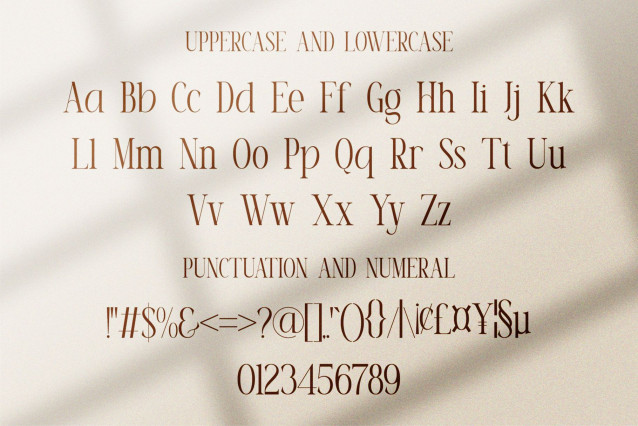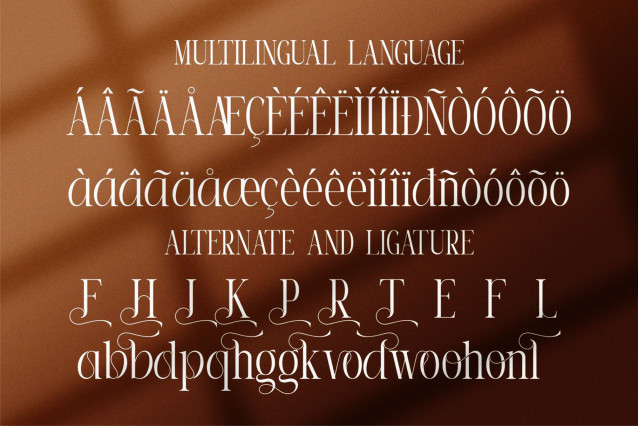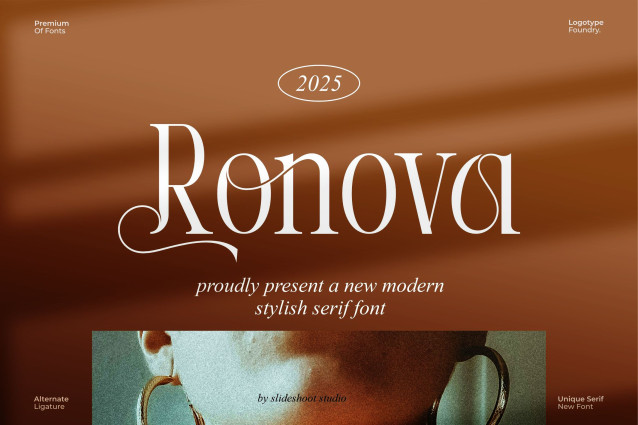
Ronova Font
Ronova Font is a modern and classy font type for all branding and logo designs. This modern and classy Serif font has a beautiful character. This font is suitable for invitation card designs, cool logos, movie titles, movie names, business cards, book titles, brand names, and various other designs. Ronova Serif is a smooth serif font that exudes sophistication and the moment. Its stylish alterations and ligatures make this font a perfect partner for any project.
Designer Name: SlideShoot